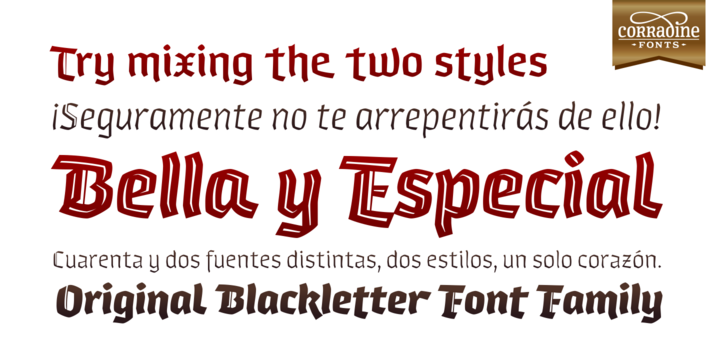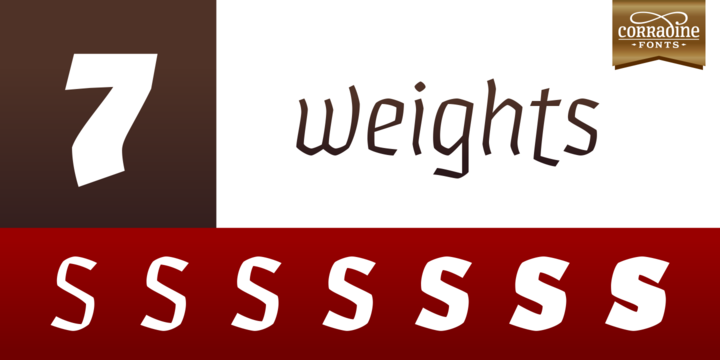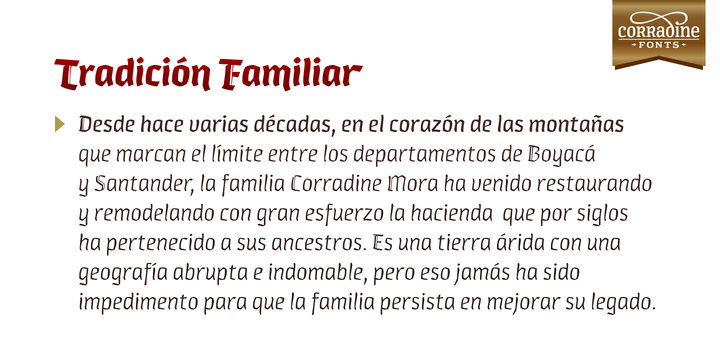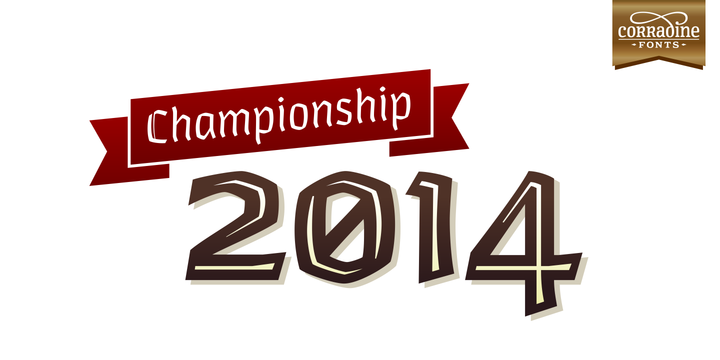
About Whisky Italic Family Font
Whisky is a blackletter font family with a casual touch that makes it look friendly and current. The stroke varies, its thickness and angle endings makes it very dynamic.